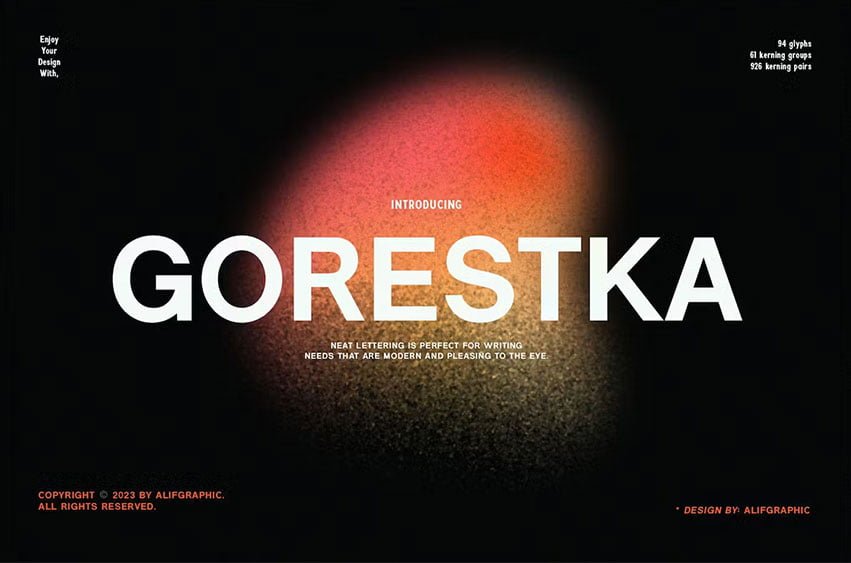
Gorestka Font is a beautiful series of letters is encapsulated in this ‘Gorestka’ font. Neat lettering is perfect for writing needs that are modern and pleasing to the eye. There is a Modern impression but still looks Elegant when used for writing. What do you get: -OTF -TTF -WOFF